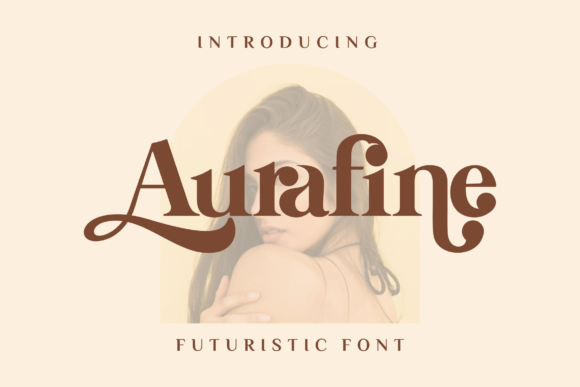
Introducing Aurafine Font: The Key to Unparalleled Brand Expression
In a world saturated with visual noise, your brand needs a voice that cuts through the clutter and resonates with your audience. Aurafine Font, a bold and authentic serif font, is not just a collection of letters; it's a gateway to a world of limitless branding possibilities.
With Aurafine, you're not simply downloading a font; you're acquiring a timeless tool that elevates your brand's identity to new heights. Whether you're crafting a minimalist logo, designing an eye-catching t-shirt, or embarking on an esports adventure, Aurafine is your trusty companion, guiding you towards creative excellence.
When you choose Aurafine, you're choosing more than aesthetics; you're choosing a font that exudes confidence and authenticity. Its strong, sturdy strokes command attention, while its elegant curves add a touch of sophistication that leaves a lasting impression. Aurafine is the perfect font for businesses, entrepreneurs, and creatives who dare to stand out and make a statement.
Dive into the world of Aurafine and discover a font that's as versatile as your imagination. Its timeless design complements a wide range of design projects, from sleek logos to captivating posters. Whether you're aiming for a minimalist aesthetic or a bold and vibrant look, Aurafine effortlessly adapts to your vision, ensuring your brand's message shines through.
Don't settle for ordinary fonts that blend into the background. Embrace Aurafine's distinctive charm and watch your brand take center stage. It's the font that turns heads, sparks conversations, and leaves an indelible mark on your audience.